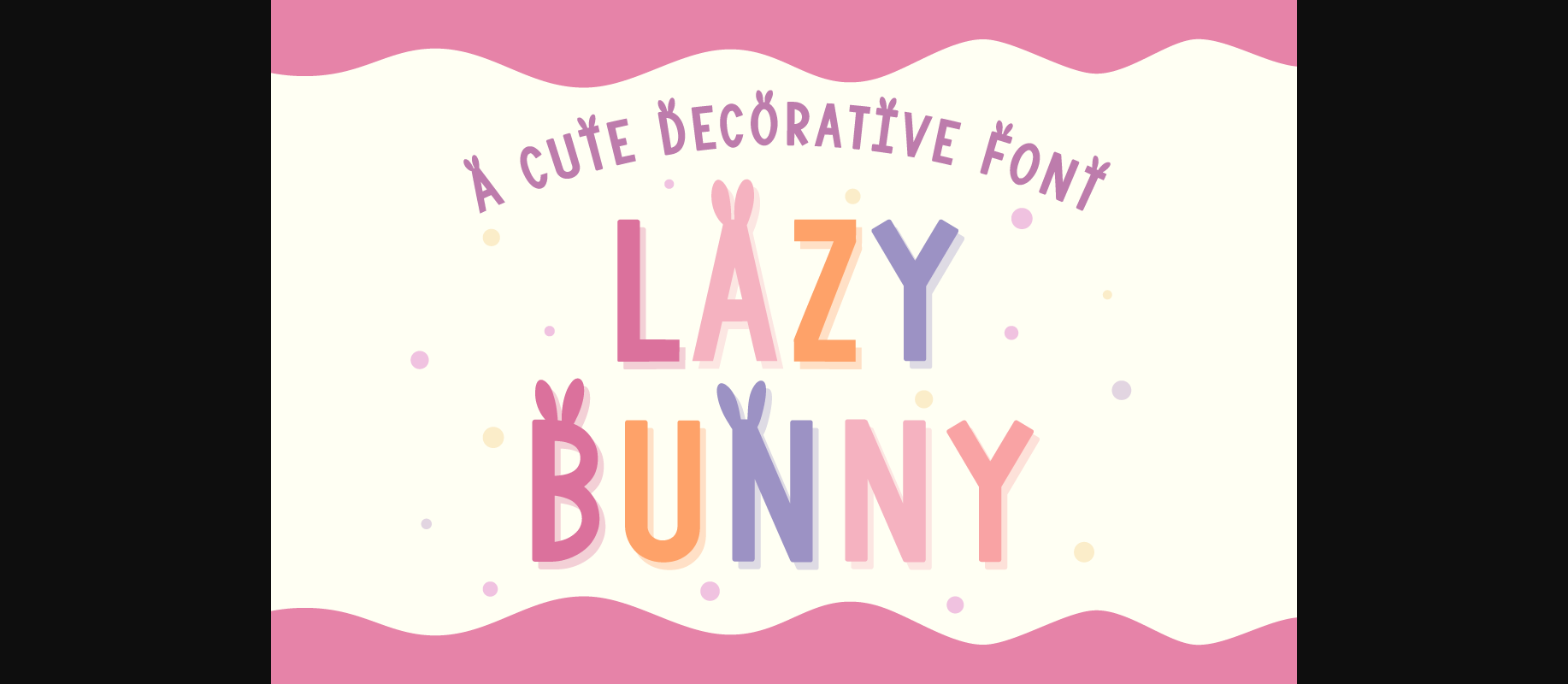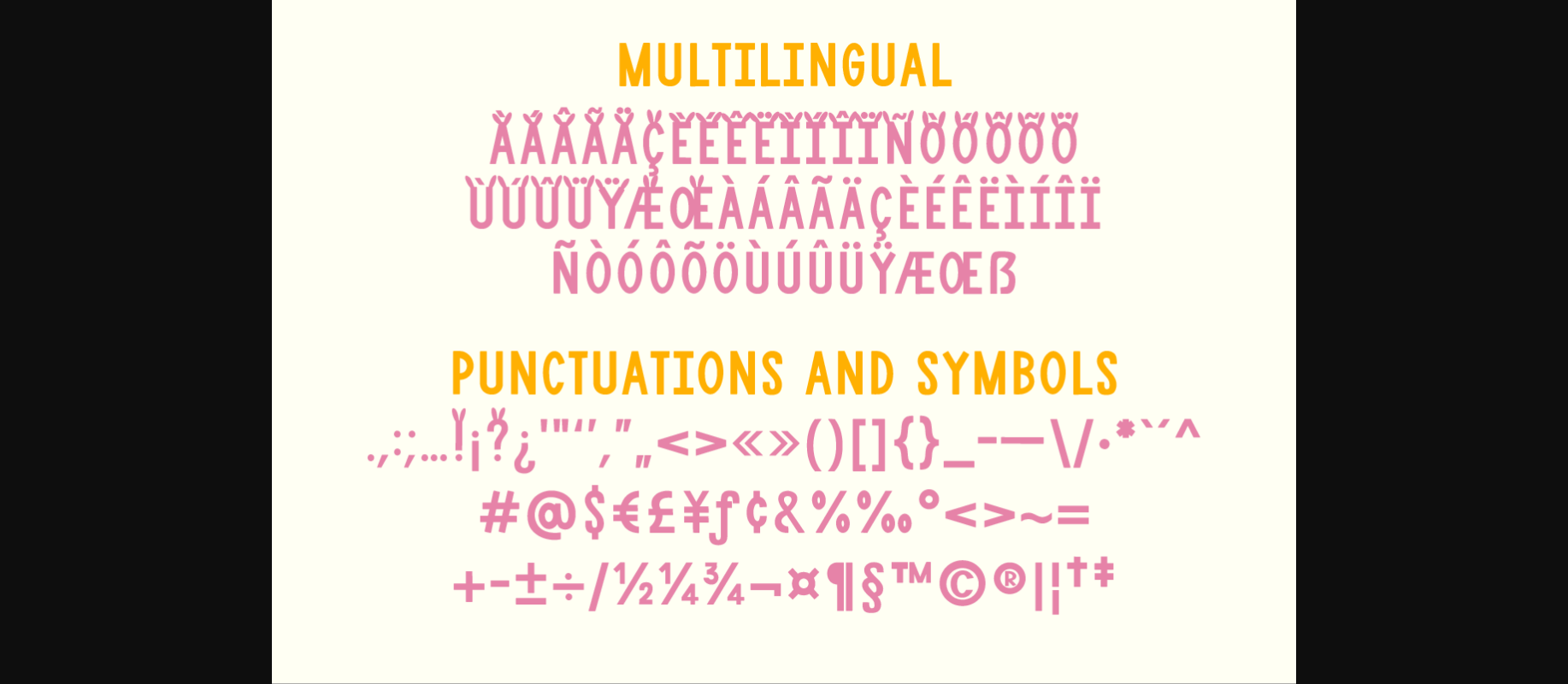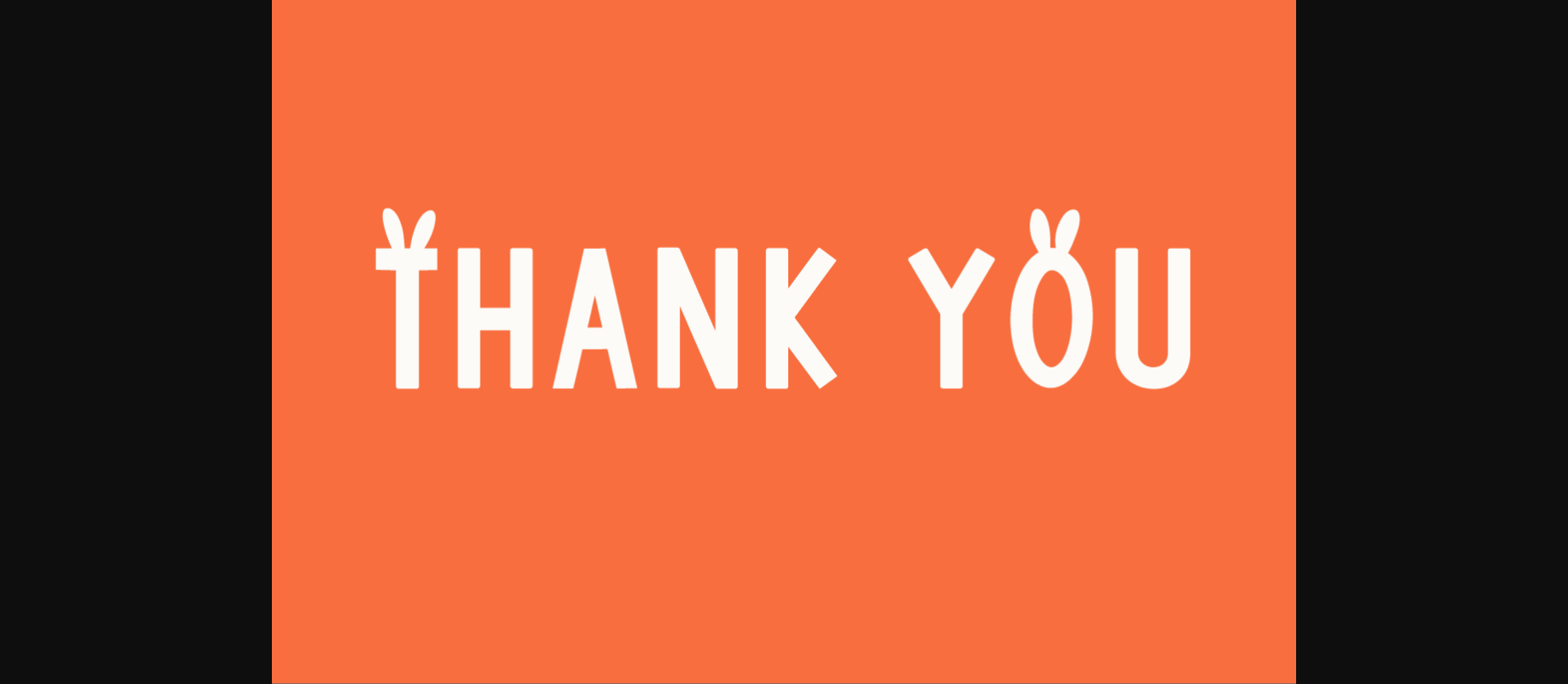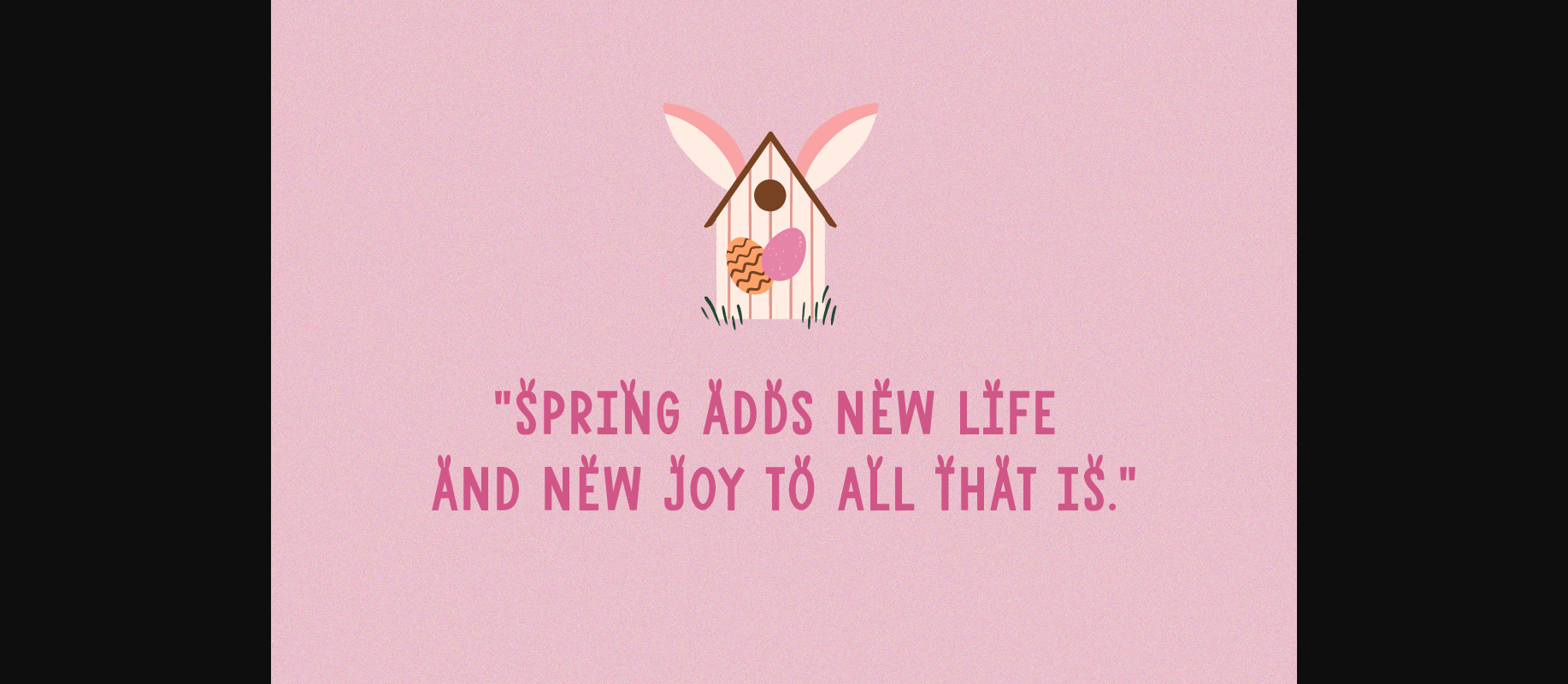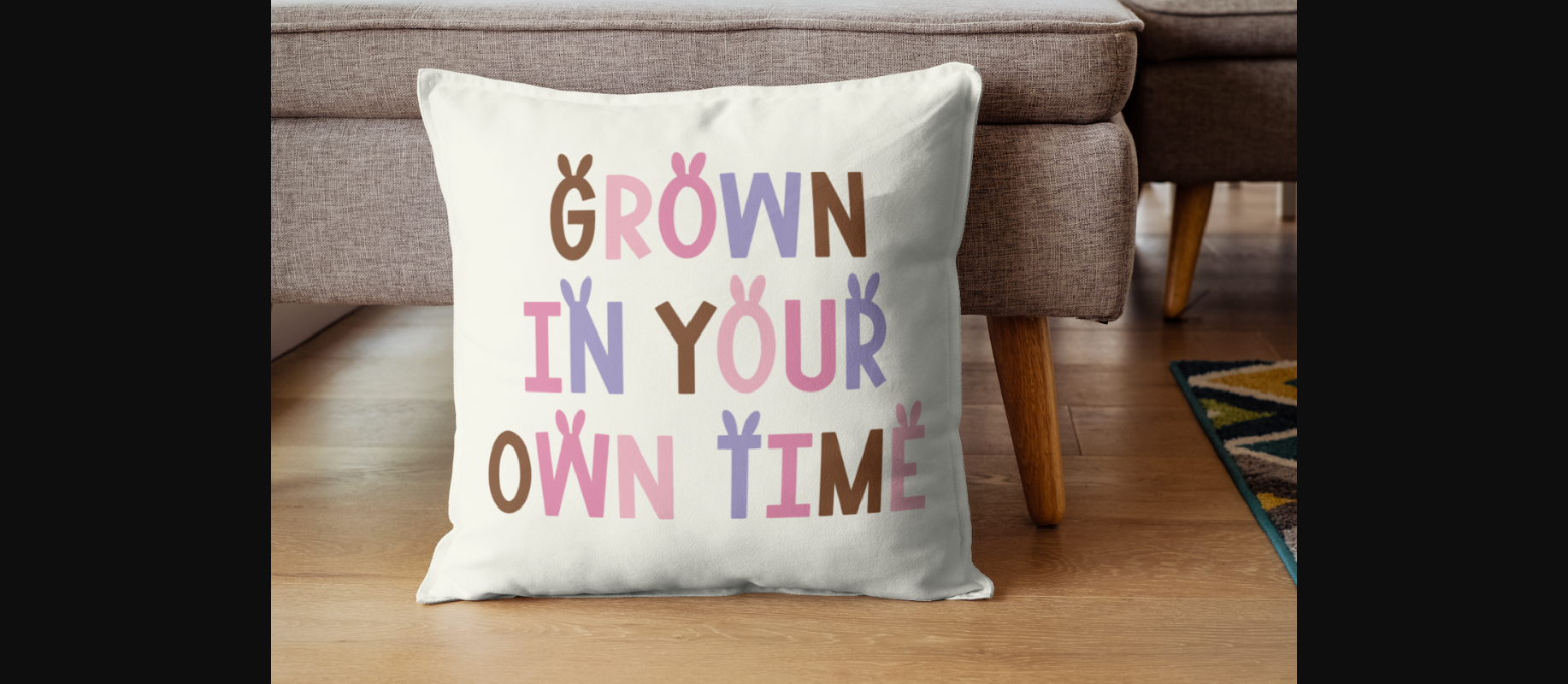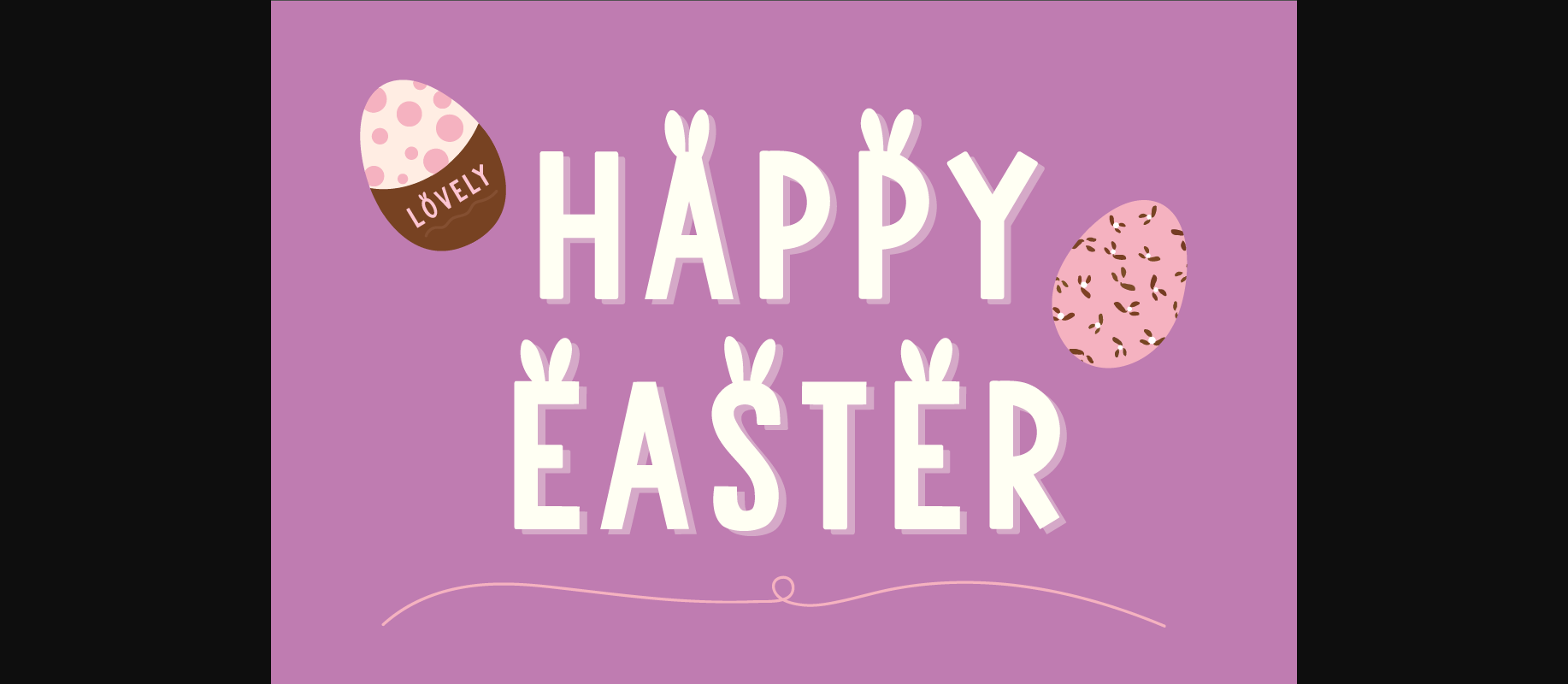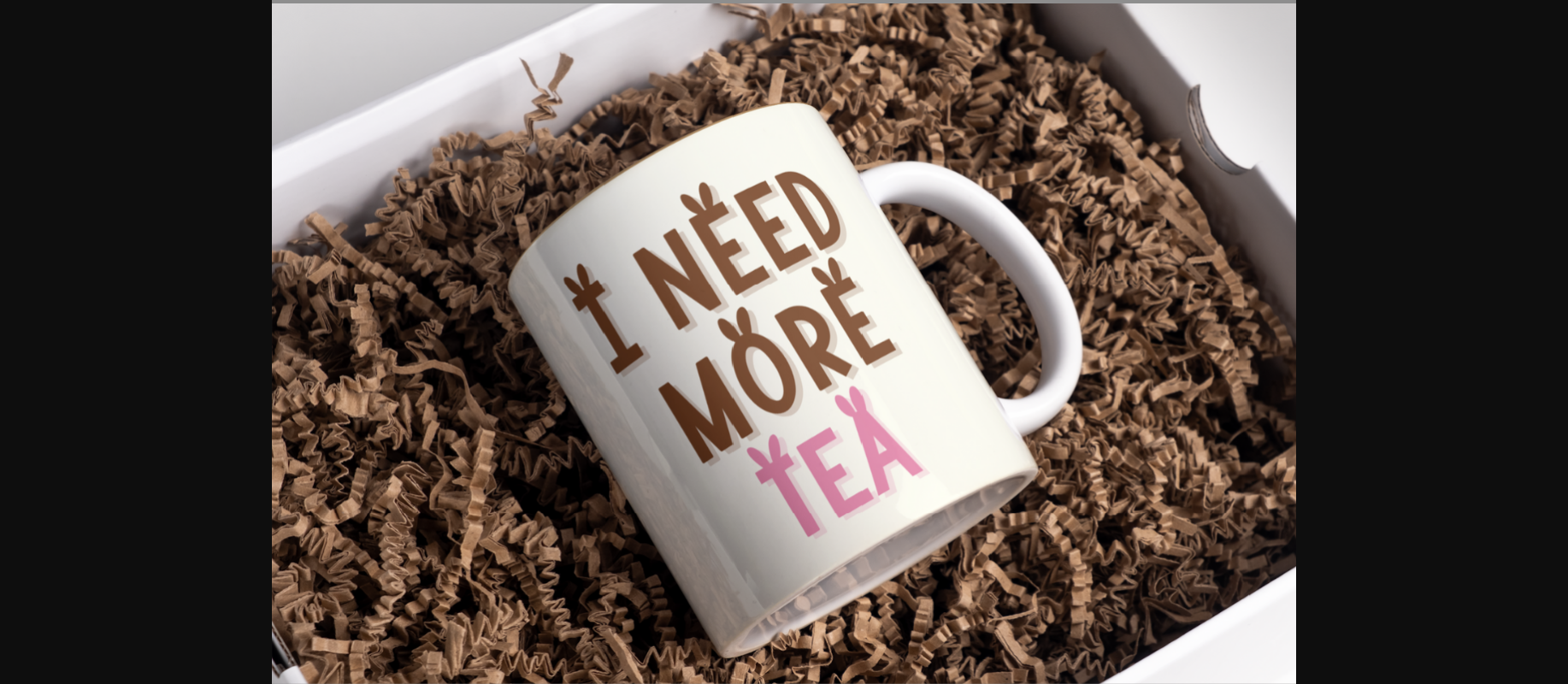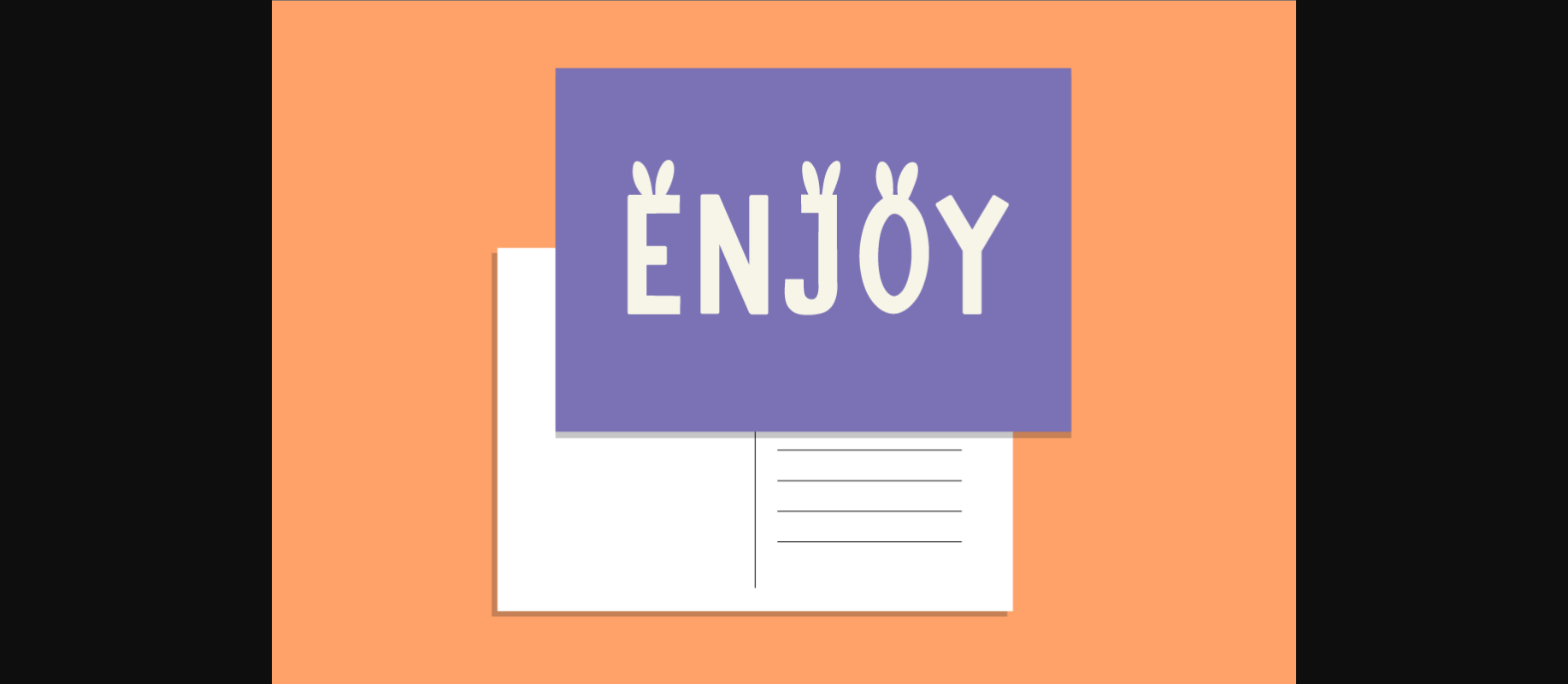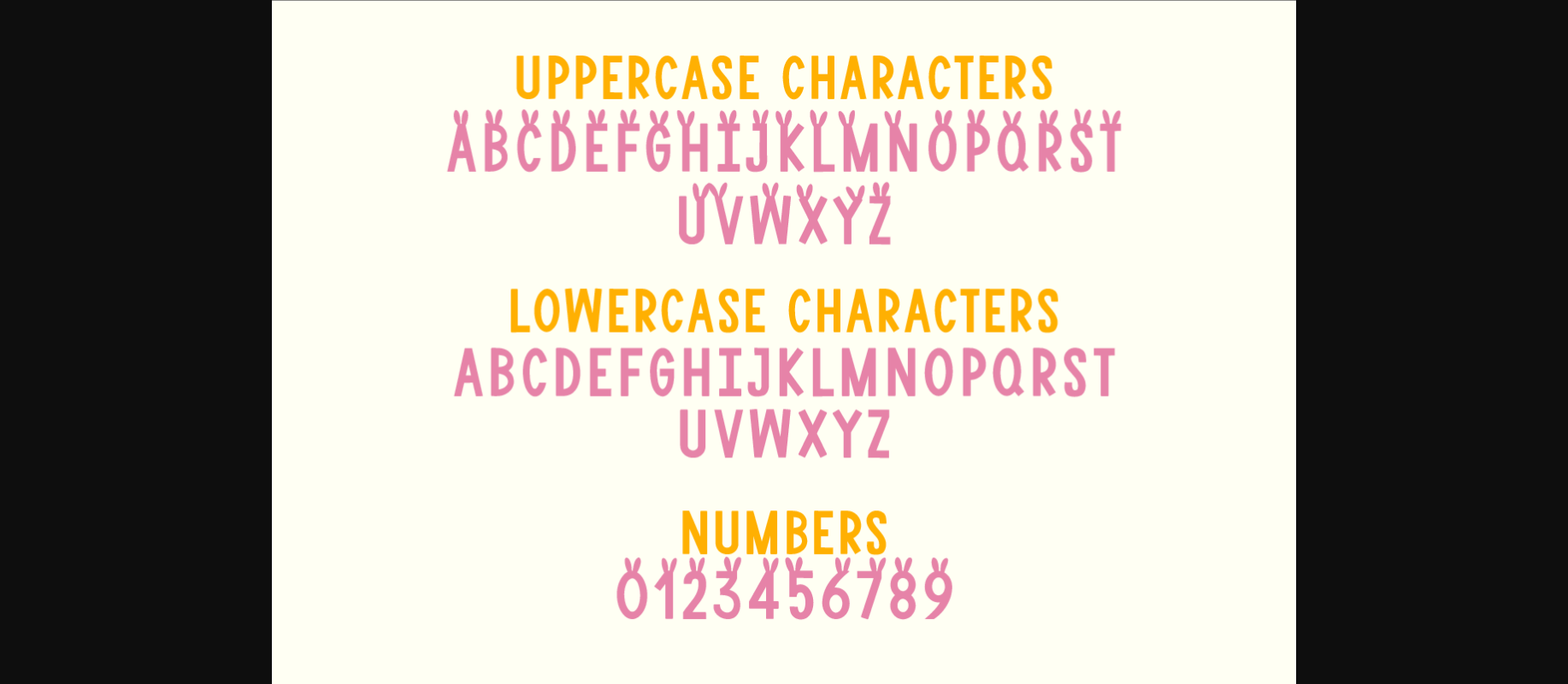
Lazy Bunny Font
About Lazy Bunny Font
Lazy Bunny is a playful decorative font. Perfect for Easter projects, shirts, Easter designs, invitation cards, mugs, stickers, playful quotes, creating posters, logos, greeting cards, packaging, decorating the illustration and so much more!